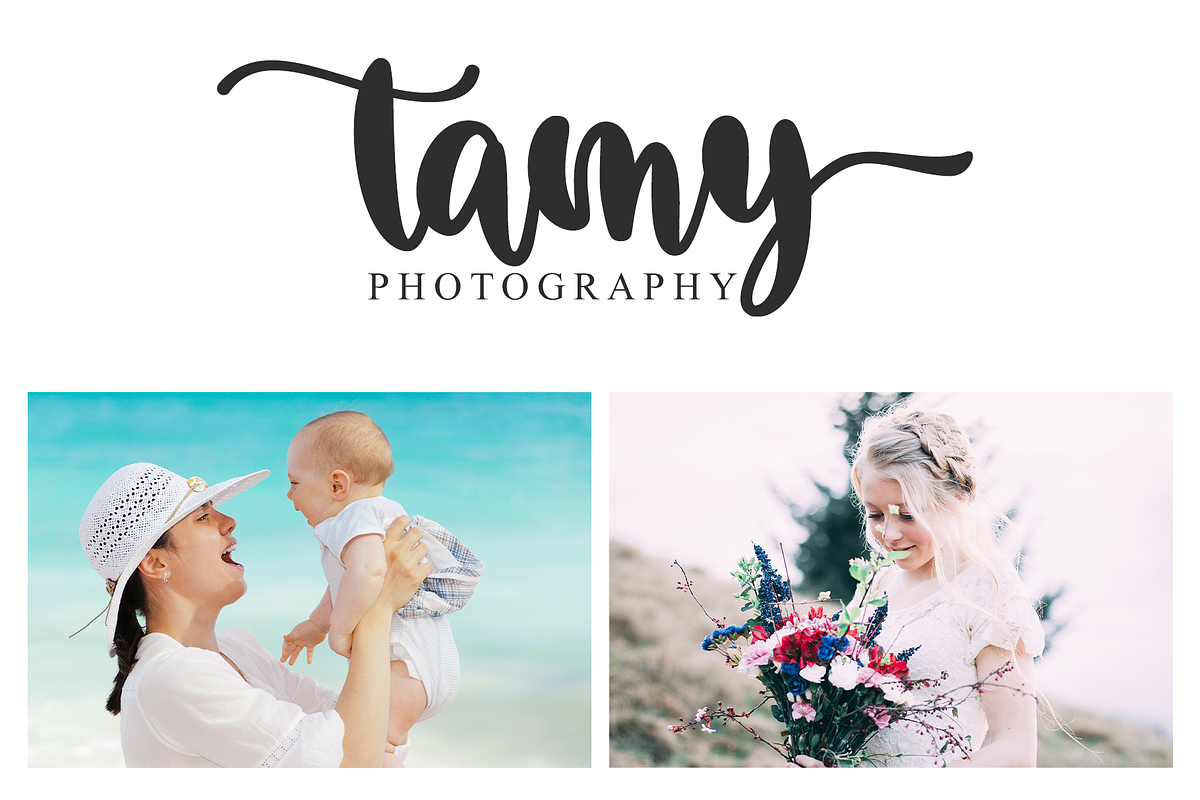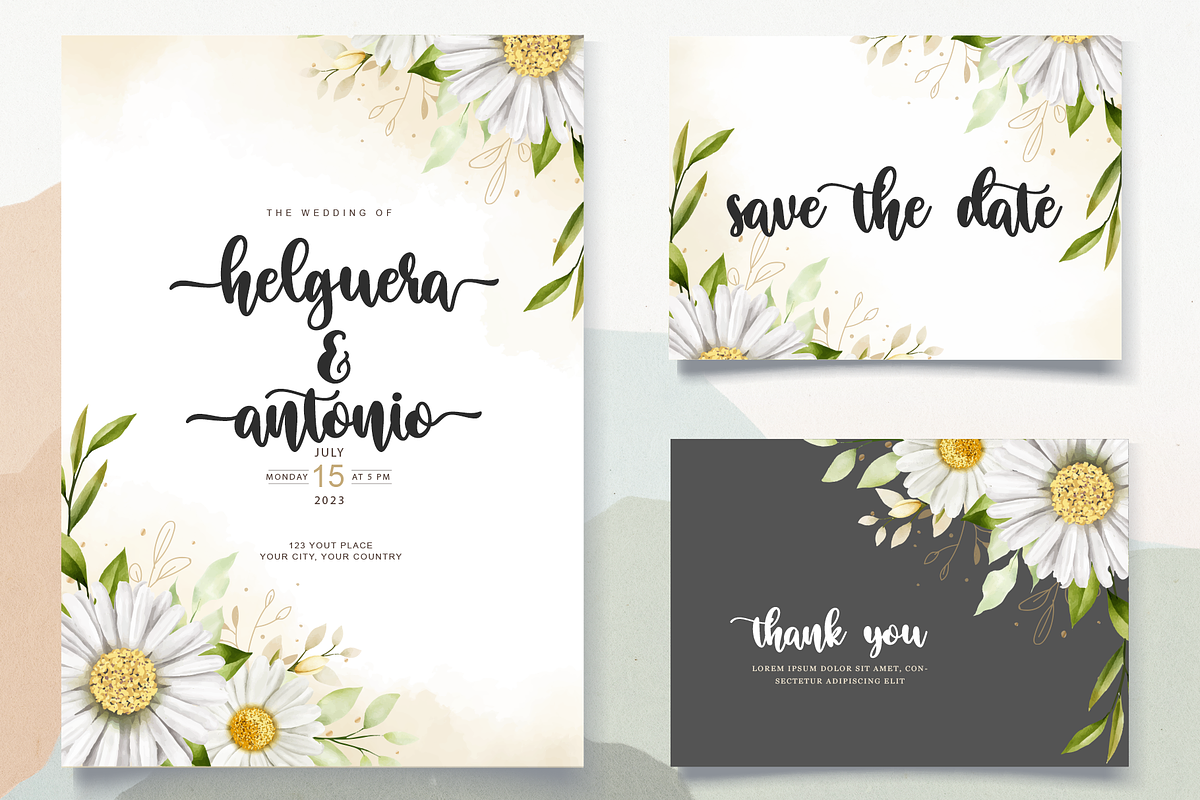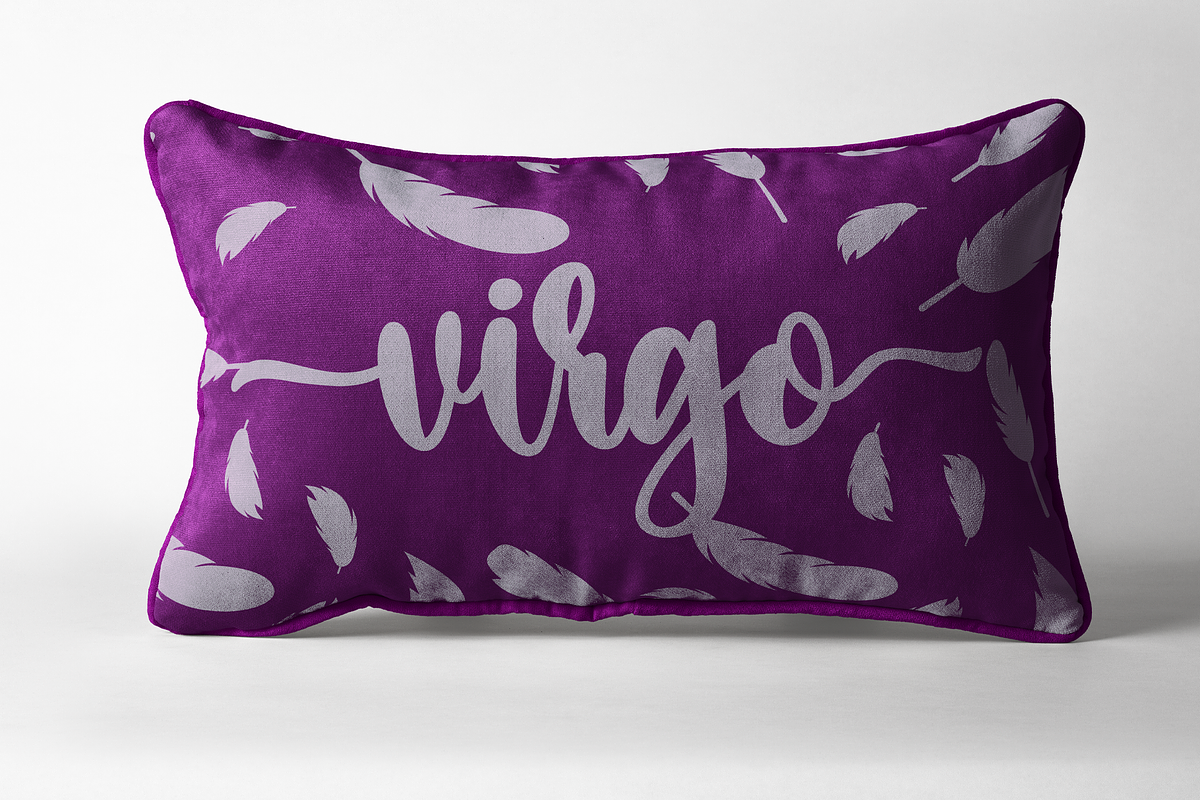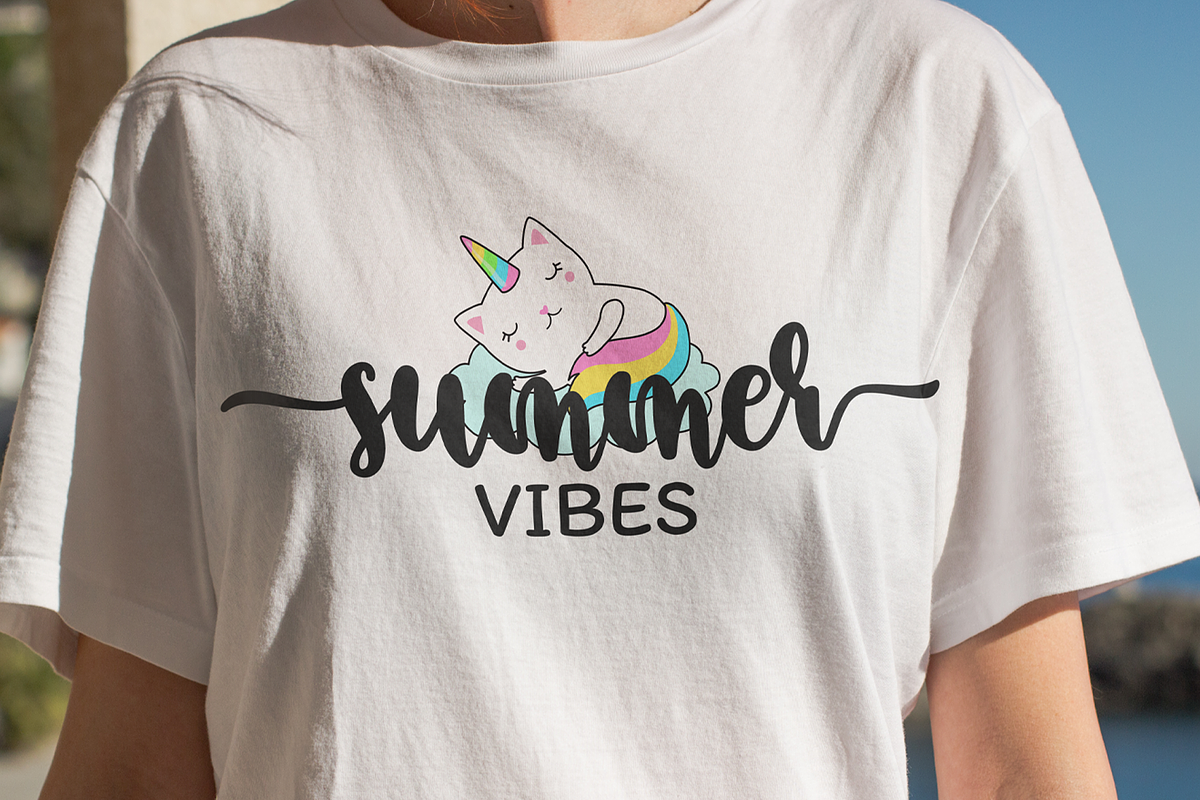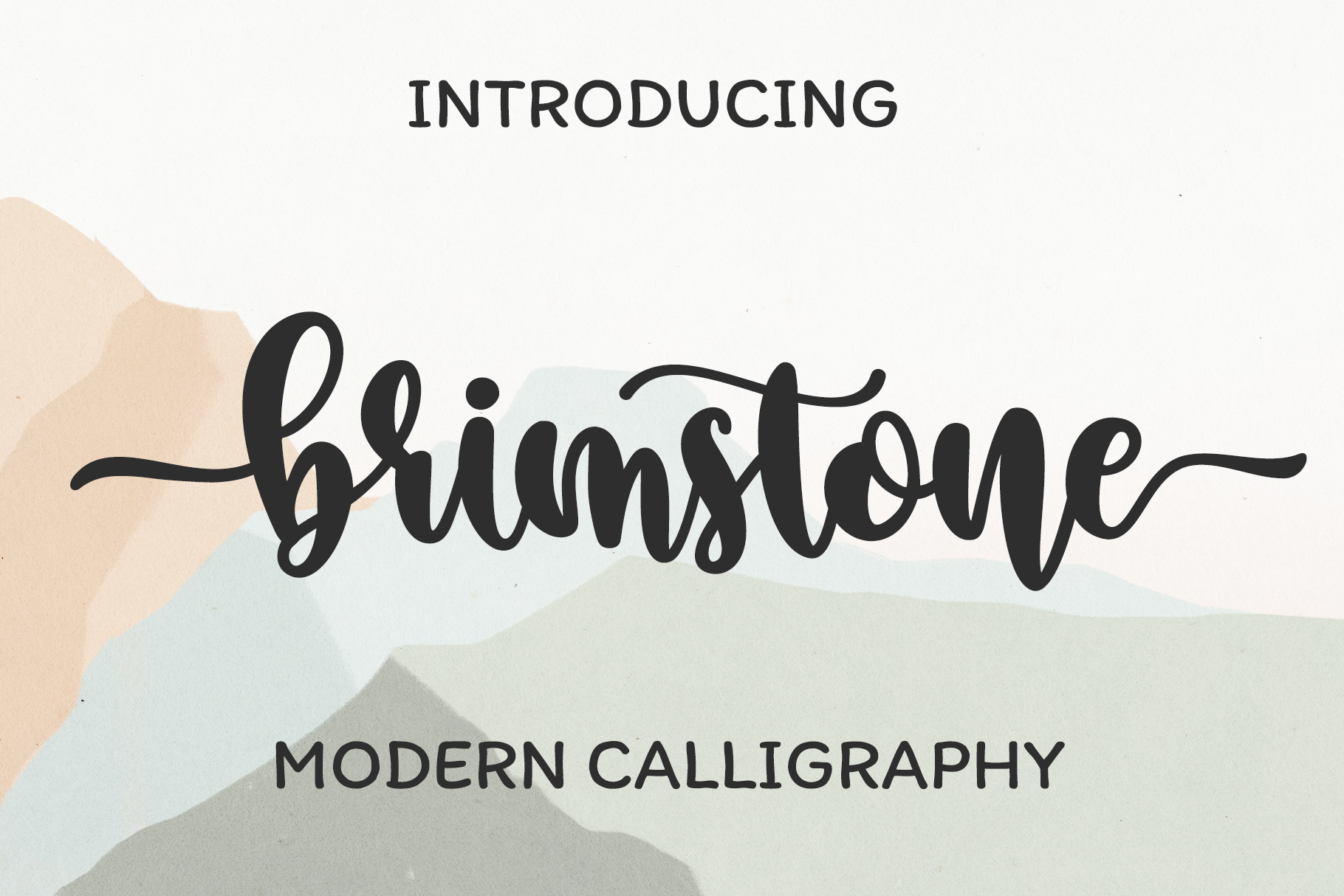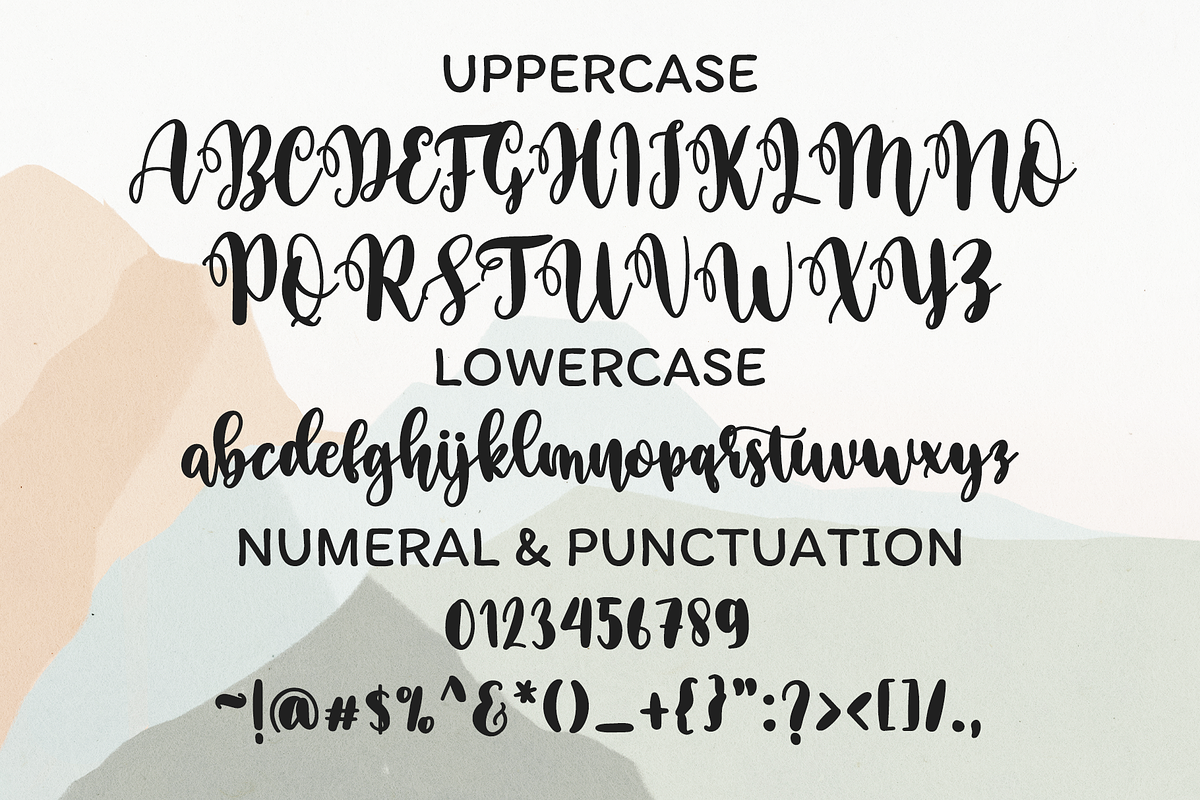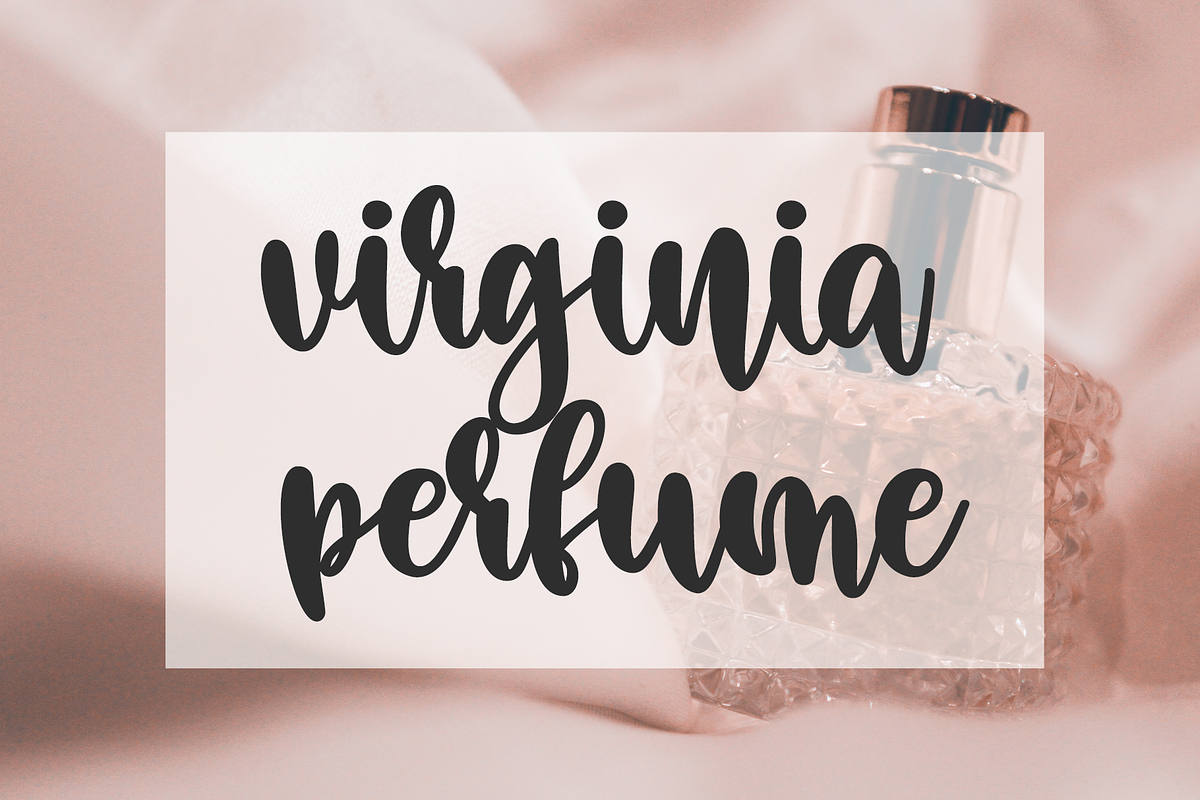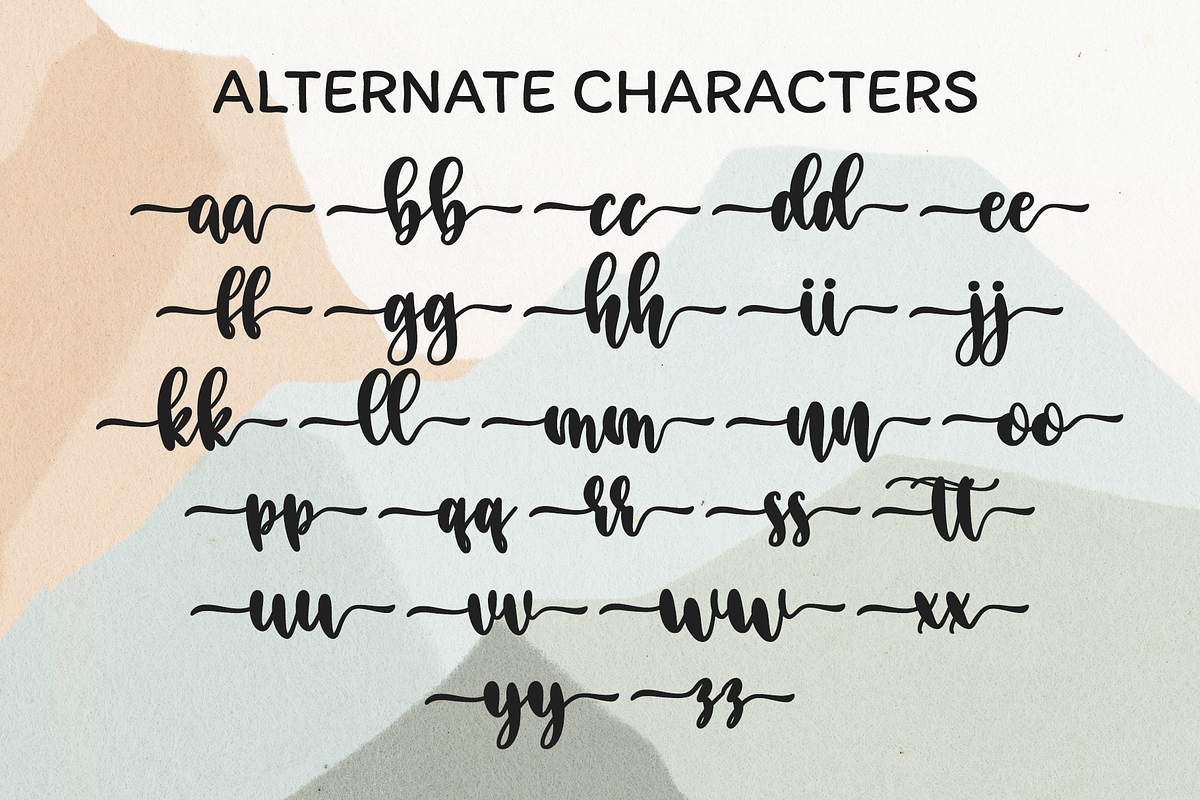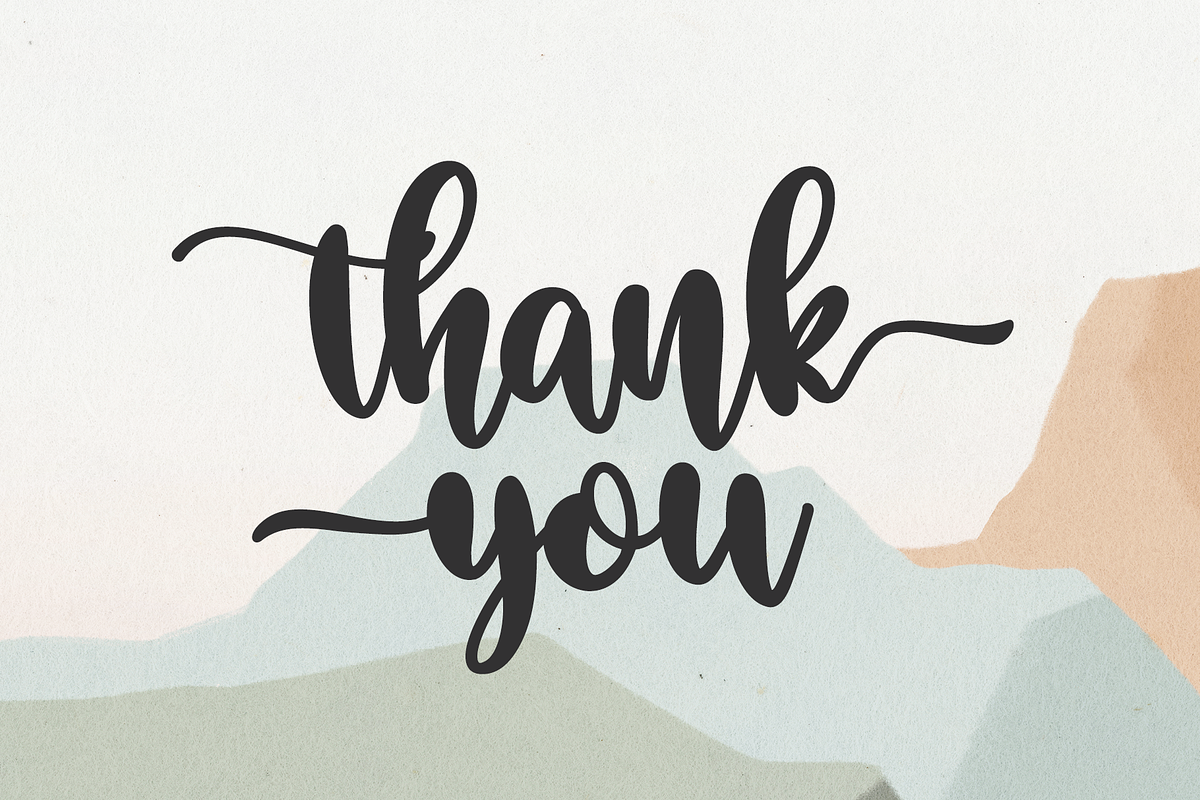
Brimstone | Modern Script Font
Brimstone is an exquisite handwritten font, masterfully designed to become a true favorite. It maintains its classy calligraphic influences while feeling contemporary and fresh. Brimstone is PUA encoded which means you can access all of the glyphs and swashes with ease!
- Ligature Character
- Alternate Characters